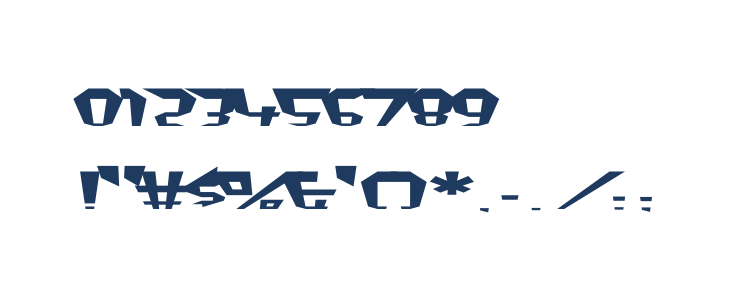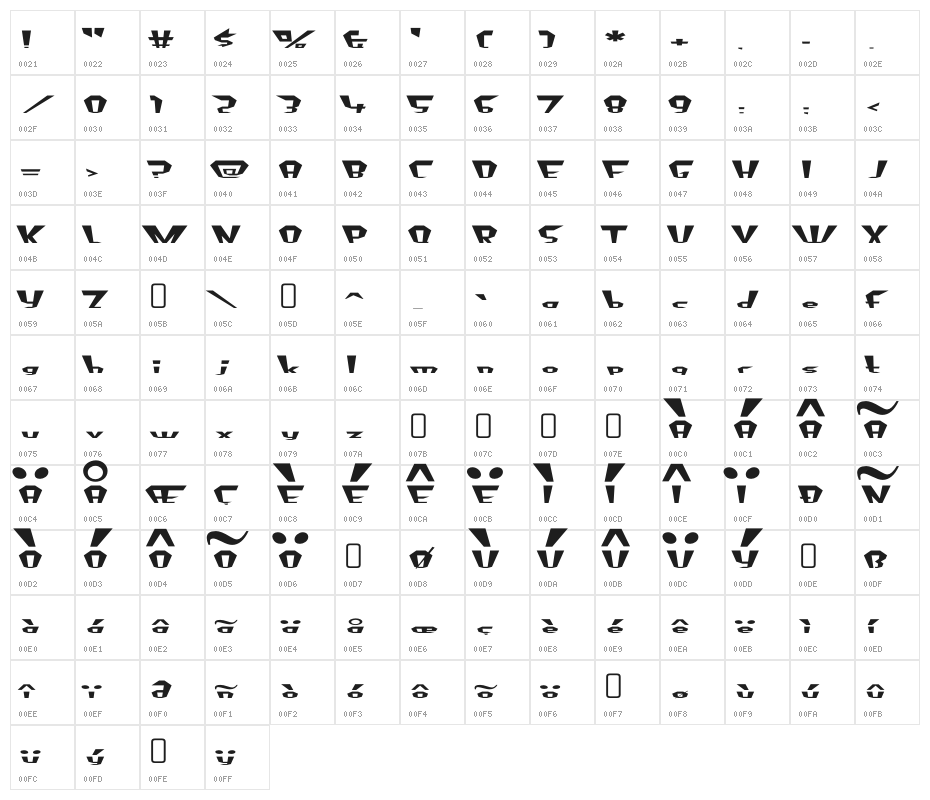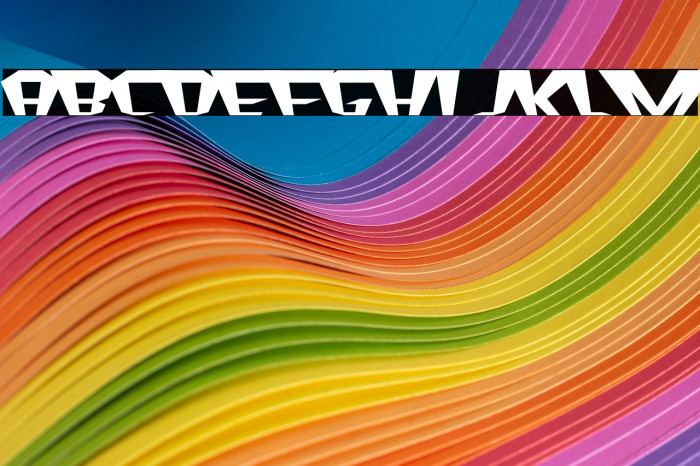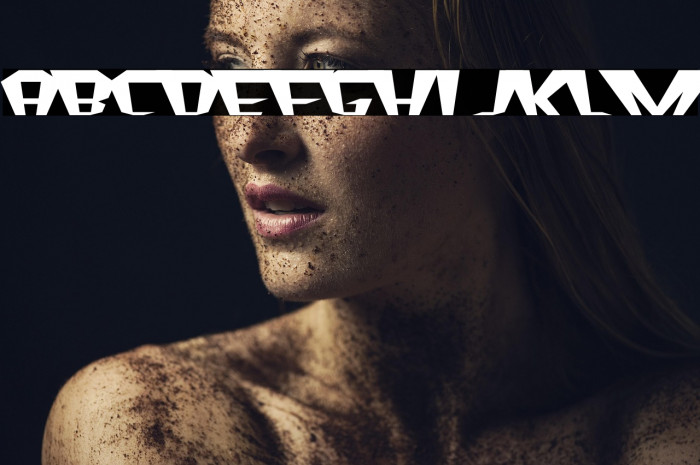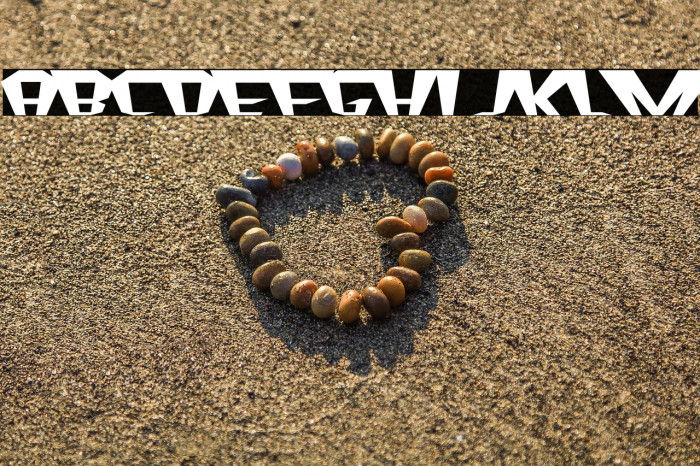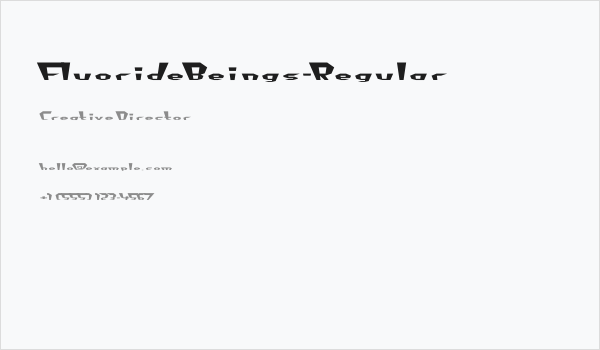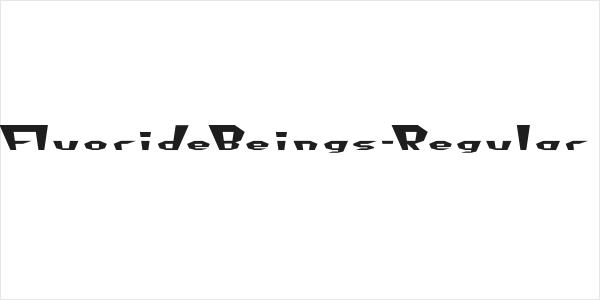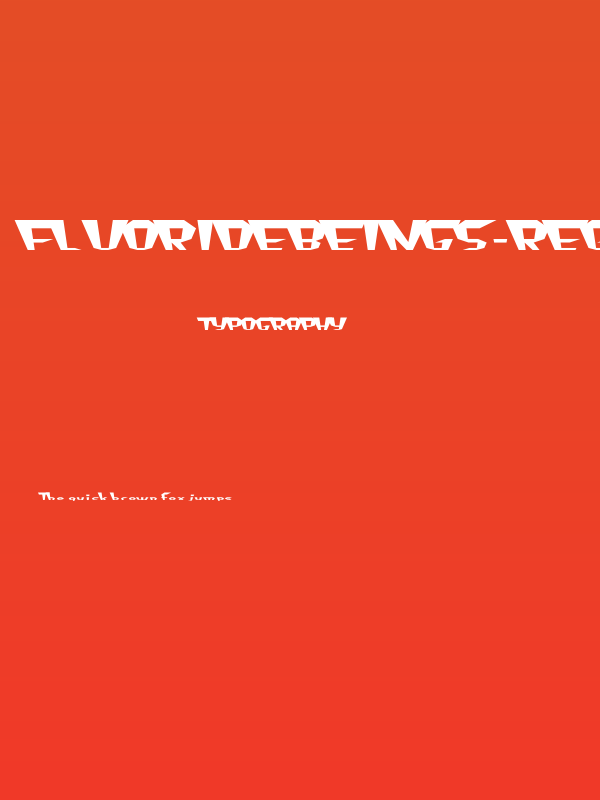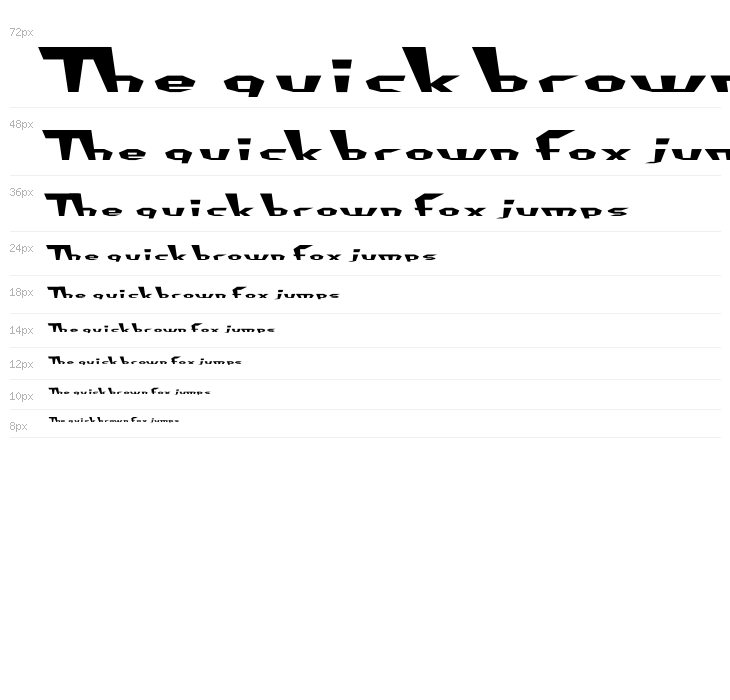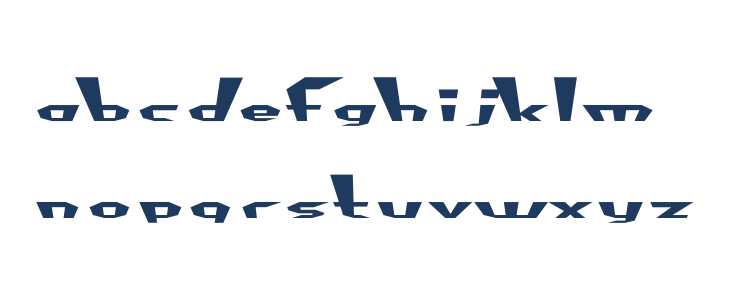
FluorideBeings-Regular Font
FluorideBeings-Regular Description
This font features a bold and angular design with sharp, geometric edges that create a futuristic and dynamic appearance. The characters are heavily stylized, with unique cuts and angles that give them a distinct, edgy look. The uppercase and lowercase letters maintain a consistent style, while the numerals and special characters follow the same angular theme. This font's striking design makes it ideal for projects that require a modern and unconventional aesthetic.
| Overall Style | Futuristic, Edgy |
| Proposed Projects | Ideal for sci-fi themed designs, video game graphics, edgy branding, and modern posters. |